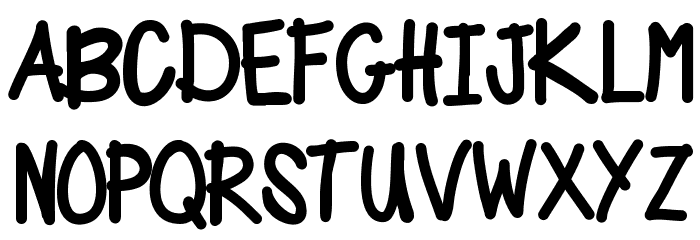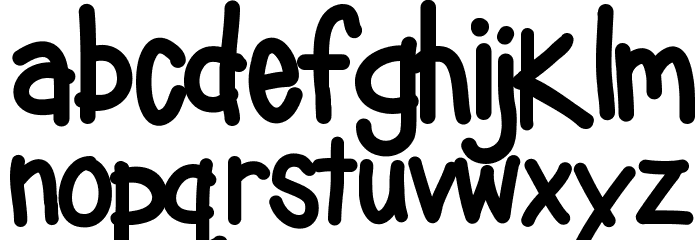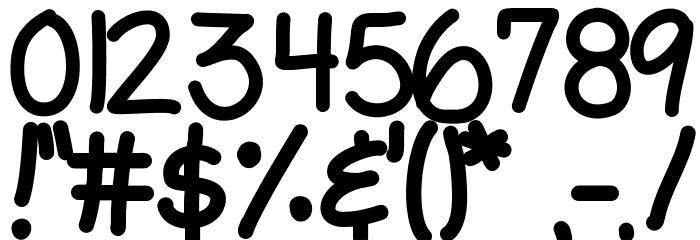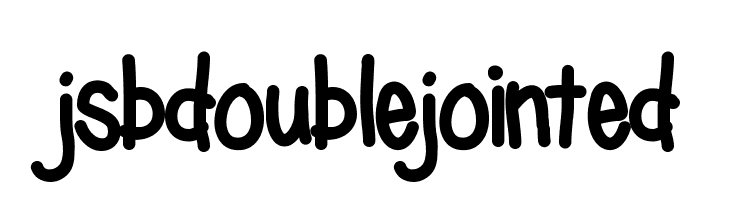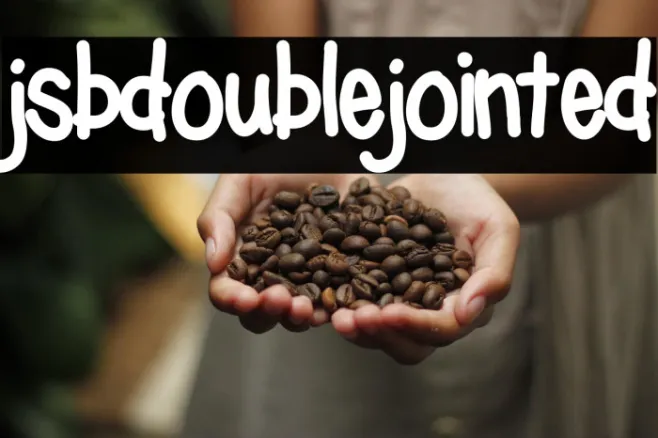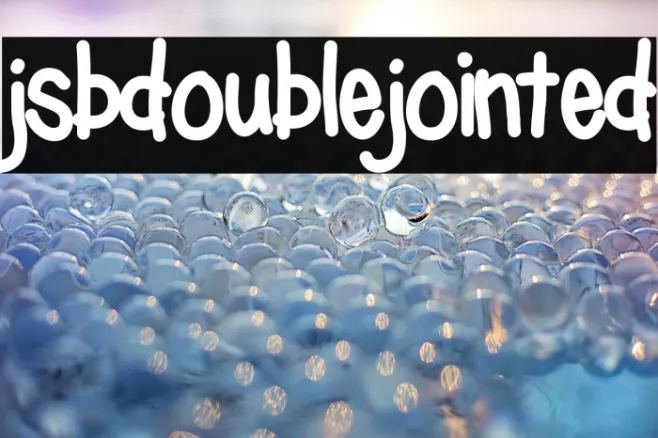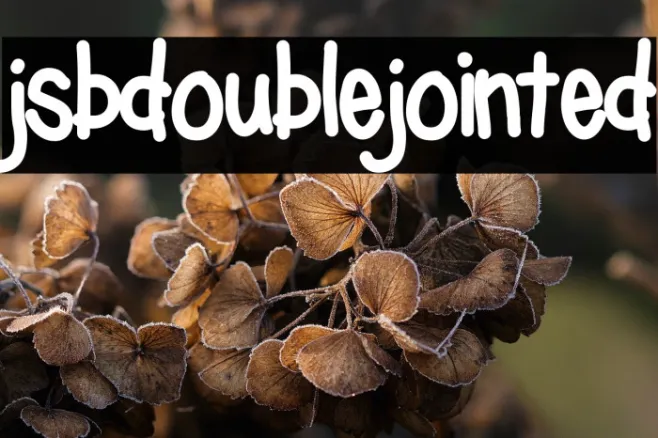
jsbdoublejointed
A playful, handwritten font with bold, rounded strokes and a casual style.
Playful handwritten font with bold strokes.
- Proposed Projects: Children's books, casual invitations, playful branding.
- Overall Style: Casual, Playful
- Use Case: Headlines, Informal text, Logos